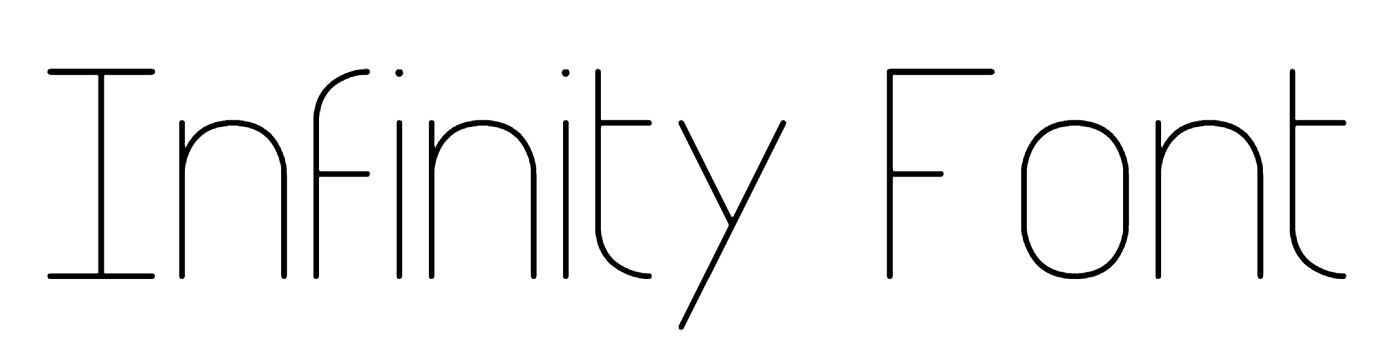
Infinity
Infinity is a sans serif font (2011). Its clean letters skip the little "feet" (serifs) of traditional type, so it looks modern and reads well on screens. It's a free download, and you can try it with your own text in the preview above first.
With complete upper and lowercase letters and all ten digits, Infinity is ready for real wording, not just a single headline. Common punctuation such as &, !, ? and @ is included as well. It also has the accented letters you need for Spanish, French, German, Portuguese and Italian.
Think of Infinity for websites, app screens and clean logos. Its lowercase letters are tall compared to the capitals, which keeps it readable at smaller sizes. The file has no kerning data, so in logos and big titles check pairs like AV, To and Wa and tighten the spacing by hand. It works for headings and body text alike. If the download has several weights, use a heavier one for titles and a lighter one for paragraphs.
Yes. Infinity includes the accented letters needed for Spanish, French, German, Portuguese and Italian, so it works for more than just English.